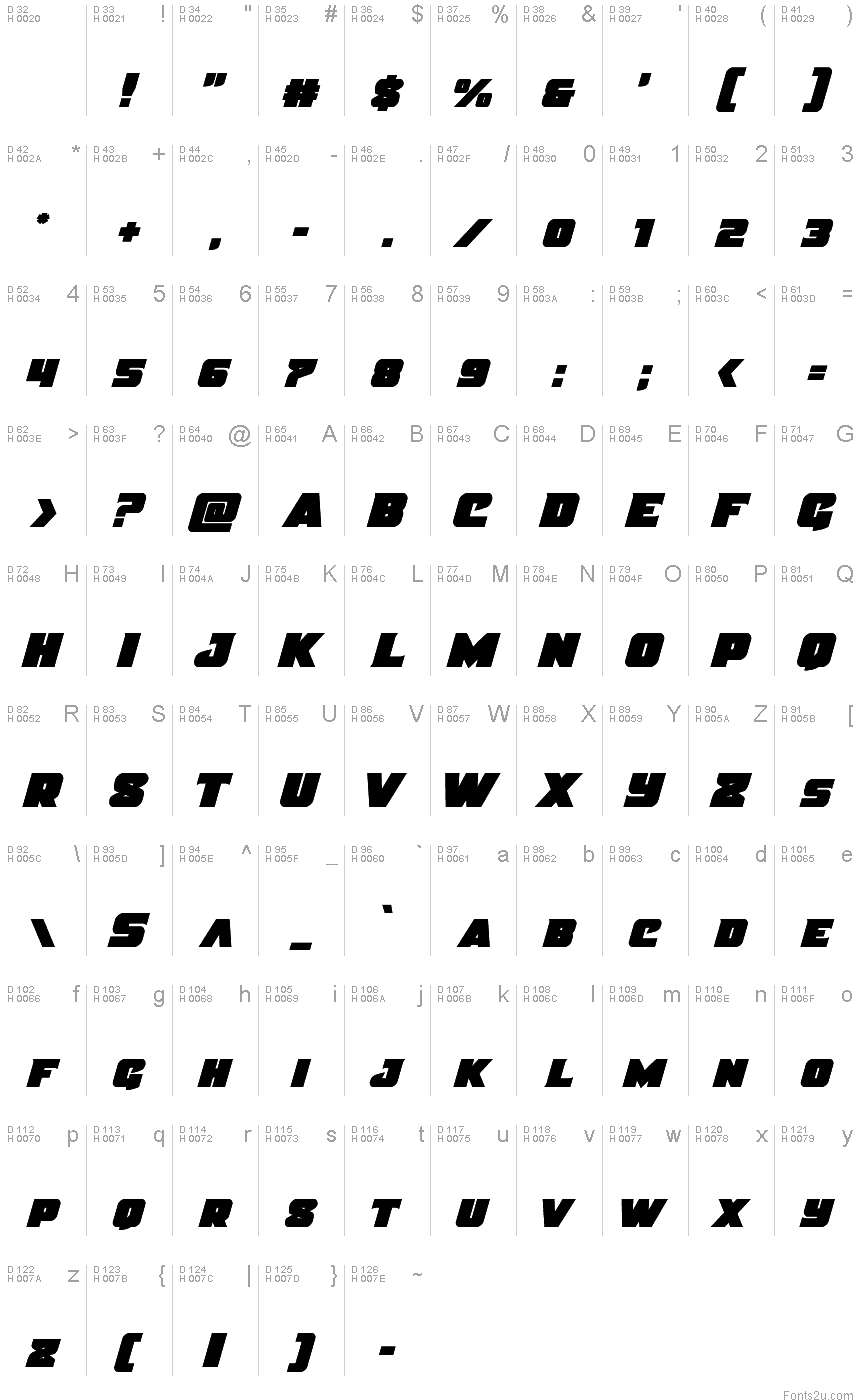
Justice, designed by Daniel Zadorozny of Iconian Fonts, is a free italic sports display font built from broad, tightly packed forms with blunt outer curves. Sharp diagonal cuts keep the dense lettering in motion.
Team merchandise and music posters sit in different worlds, but both can use its compressed mass and forward tilt to turn a name into an aggressive emblem, with angular notches adding a custom-drawn edge. In publishing, that blocky silhouette gives magazine covers and sports features a recognizable title treatment, and the cutaway shapes can echo speed lines, team insignia, or hard-edged editorial illustration throughout an entire themed issue.